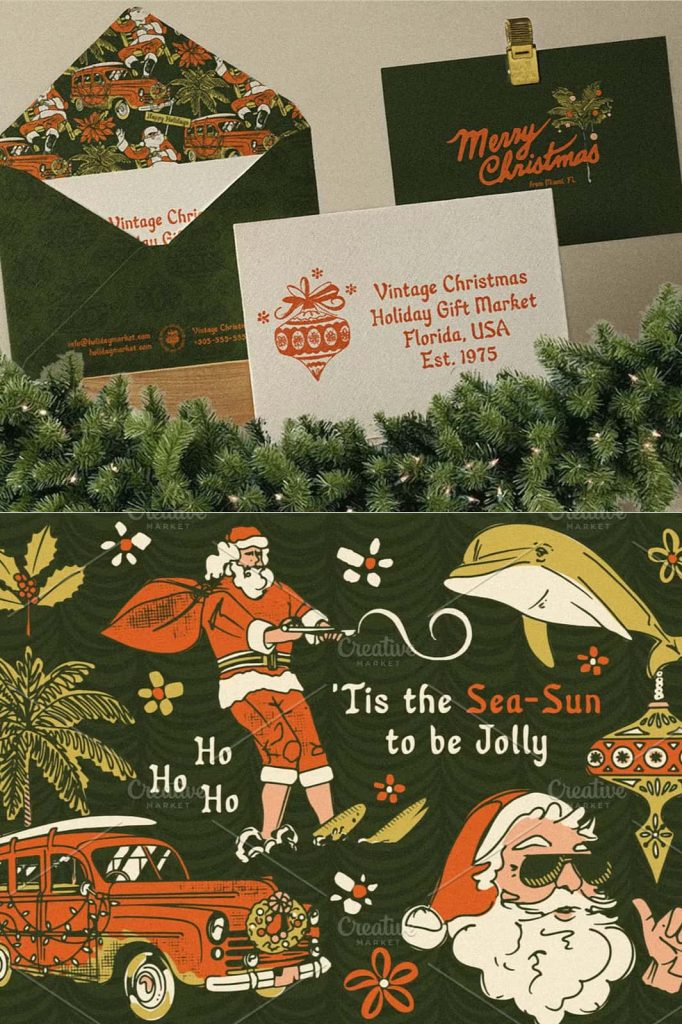
Vintage Christmas: Fonts, Patterns, and Graphics with Retro Holiday Charm
Vintage Christmas is a vibrant and playful design collection that brings a fresh twist to classic holiday aesthetics. Inspired by retro Christmas wrapping paper and sun-soaked holidays spent at the beach, this collection blends nostalgic charm with unexpected coastal energy. It reimagines traditional Christmas imagery through a bold, vintage lens, creating designs that feel joyful, memorable, and full of personality.
This collection goes beyond conventional holiday visuals by combining festive warmth with relaxed beach culture. The result is a unique creative toolkit that captures the spirit of Christmas in a fun and unconventional way, perfect for brands and designers who want to stand out during the holiday season.
Retro-Inspired Fonts, Patterns, and Illustrations
At the heart of the Vintage Christmas collection is a carefully curated selection of fonts, patterns, and graphics that work seamlessly together. Each element draws inspiration from mid-century holiday design, classic printed wrapping paper, and sun-faded beach memorabilia. These influences come together to create visuals that feel authentic, nostalgic, and instantly engaging.
The fonts feature bold shapes, playful curves, and vintage character, making them ideal for holiday headlines, product names, and promotional messaging. The patterns echo classic Christmas prints while introducing fresh, beach-inspired themes that add depth and visual interest to any project.
Playful Santa Graphics with a Coastal Twist
One of the most distinctive features of this collection is its illustrated Santa designs. Instead of the traditional snowy setting, Santa is reimagined surfing waves, boating along the coast, and water skiing under the sun. These playful graphics inject humor and originality into holiday designs while maintaining a strong retro aesthetic.
Each illustration is crafted with attention to detail and a clear vintage influence, making them perfect for creating standout visuals. These graphics instantly communicate joy, creativity, and a relaxed holiday mood that resonates with modern audiences.
Designed for Versatile Creative Applications
The Vintage Christmas collection is built for versatility. Its fonts, patterns, and graphics can be applied across a wide range of creative projects, making it a valuable asset for both digital and print design. Whether you are working on a small seasonal campaign or a full holiday brand refresh, this collection provides the flexibility needed to bring your ideas to life.
Designers can confidently use these elements in advertisements, branding materials, and product packaging. The retro aesthetic attracts attention, while the beach-inspired twist adds a fresh and unexpected edge that helps designs stand out in crowded holiday markets.
Perfect for Digital and Print Projects
Vintage Christmas performs beautifully in digital spaces such as social media content, web design, and online advertising. The bold fonts and eye-catching illustrations ensure strong visibility on screens, while the patterns add texture and depth to layouts without overwhelming the message.
In print, this collection shines in stationery, wrapping paper, wallpaper, labels, and physical products. The vintage-inspired details reproduce clearly and maintain their charm across different formats, making them ideal for both large-scale prints and smaller decorative elements.
Ideal for Branding, Packaging, and Seasonal Products
For brands looking to create memorable holiday experiences, Vintage Christmas offers a cohesive visual language rooted in nostalgia and creativity. The collection supports strong brand storytelling by blending festive tradition with playful originality. This makes it especially effective for lifestyle brands, retail products, and seasonal merchandise.
Packaging designed with this collection feels thoughtful, warm, and visually distinctive. The combination of retro fonts, charming patterns, and unique illustrations helps products stand out on shelves and creates an emotional connection with customers.
A Holiday Collection That Tells a Story
Vintage Christmas is more than a set of design assets; it is a storytelling toolkit. Each font, pattern, and graphic works together to evoke memories of classic holidays while introducing a modern, beach-inspired narrative. This combination allows designers to create visuals that feel both familiar and refreshingly new.
By using Vintage Christmas, creatives can move beyond traditional holiday clichés and deliver designs that feel joyful, expressive, and full of character. Whether applied to branding, digital campaigns, or printed products, this collection brings warmth, nostalgia, and originality to every Christmas project.
Celebrate the Holidays with Retro Style and Creativity
Vintage Christmas empowers designers to celebrate the season with confidence and creativity. Its retro inspiration, playful Santa illustrations, and versatile design elements make it an essential collection for holiday-focused projects. By combining timeless charm with a beachside twist, Vintage Christmas offers a unique way to capture attention and spread festive cheer through design.
From wrapping paper and wallpaper to web design and social media campaigns, this collection provides everything needed to create impactful and memorable holiday visuals. Vintage Christmas delivers a bold, nostalgic, and joyful approach to seasonal design that stands out year after year.